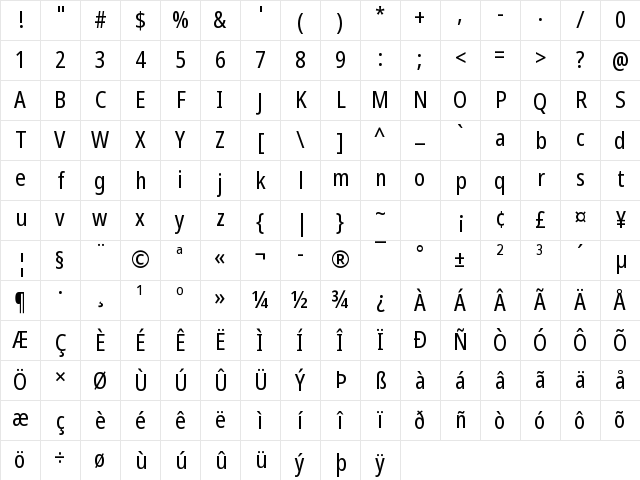
Noto Sans Disp Cond Regular
Foundry: Monotype Imaging Inc.
Designer: Monotype Design Team
Design Context for Noto Sans Disp Cond
Noto Sans Disp Cond is a composed and adaptable typeface that performs quietly and consistently across a wide range of design contexts. Its narrow stance lets it pack a punch even in space-constrained designs.